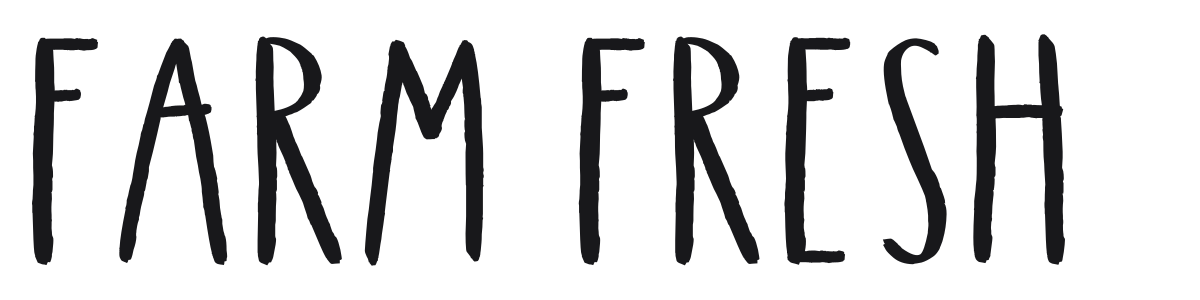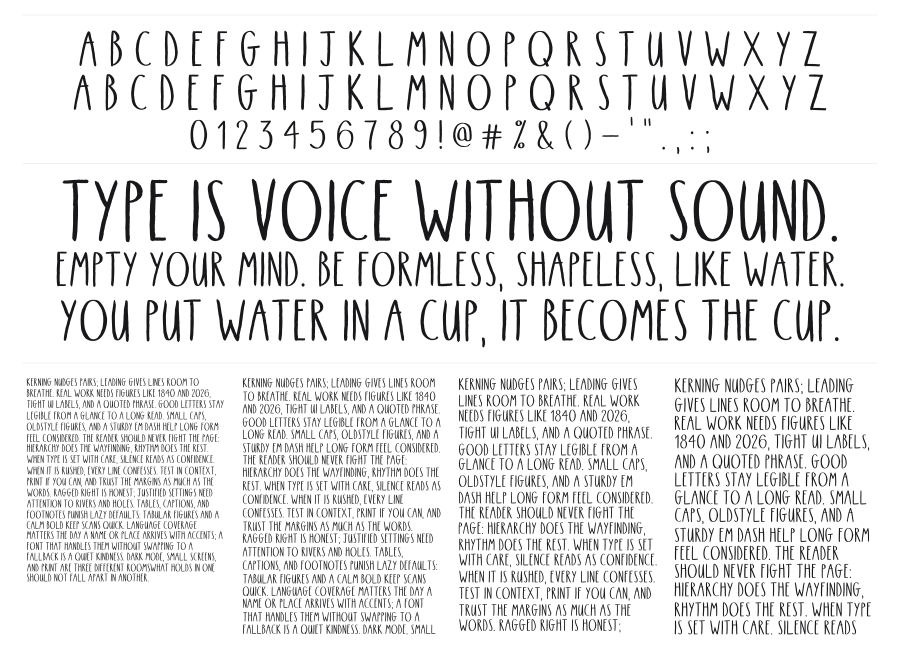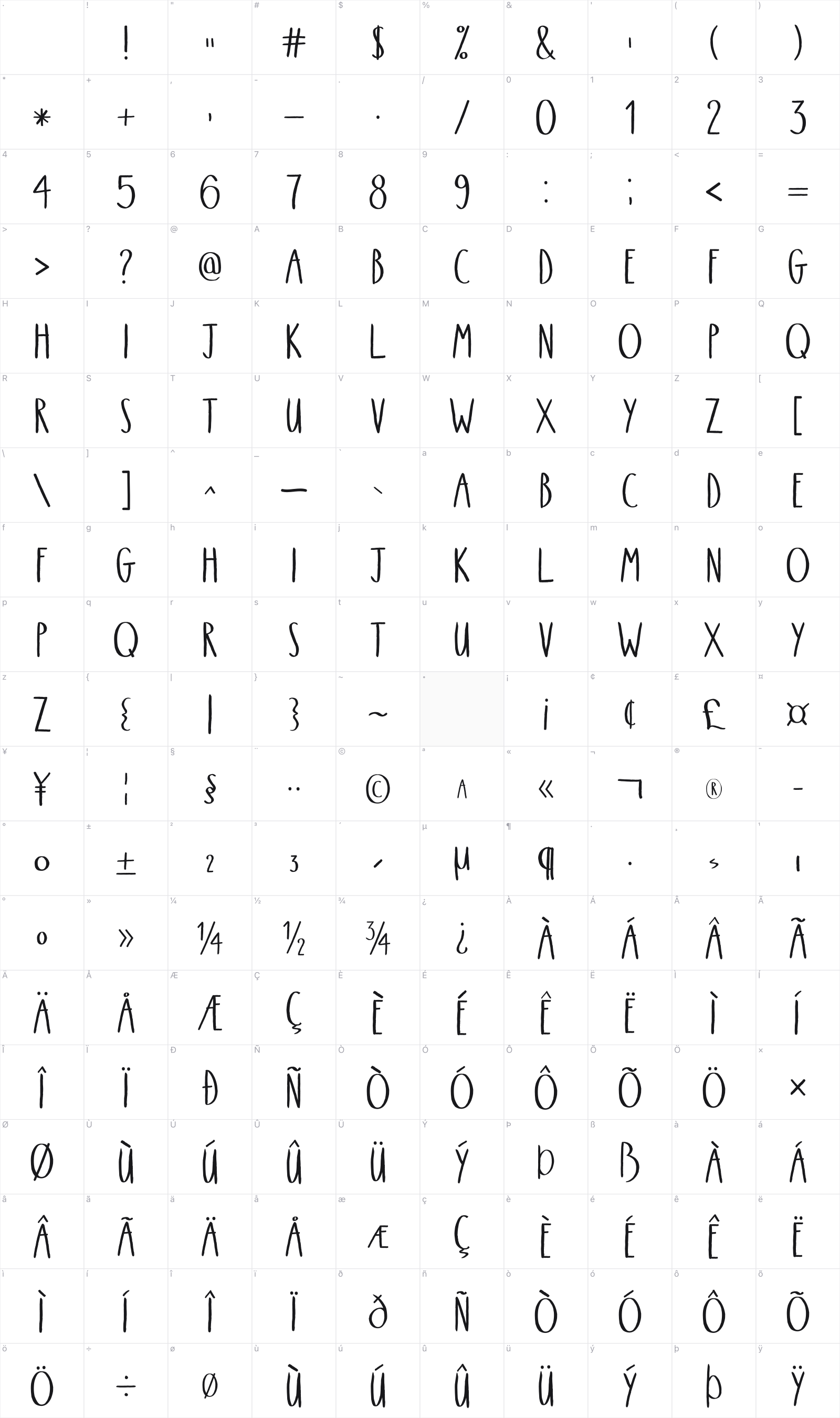
Farm Fresh
Farm Fresh is an upright handwritten font with tall, narrow characters and a natural pen-drawn irregularity. Letters vary subtly in height and weight, creating that authentic hand-lettered feel without being overly rough. It works well for packaging, signage, and branding in food, craft, and lifestyle contexts.